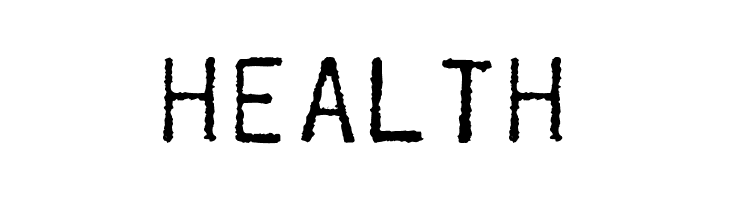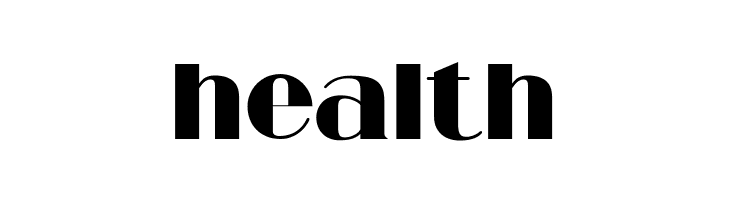
A modern, italicized font with sleek, elongated characters and minimal contrast.
A bold, Gothic-style font with characters enclosed in geometric shapes.
A bold, high-contrast font with geometric flair and modern elegance.
A modern, condensed oblique font with sleek, elegant lines.
A bold, high-contrast font with Art Deco influences and geometric shapes.
A bold, italicized font with elegant, elongated characters and a dynamic slant.
A sleek, elegant italic font with high contrast and elongated characters.
A series of abstract patterns using dots and lines for a modern, artistic look.
A vintage, hand-crafted font with elongated strokes and a rustic charm.